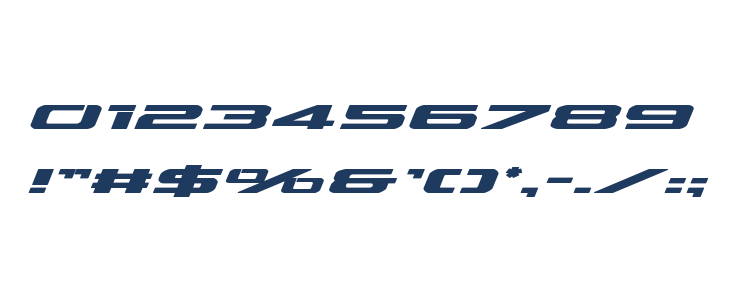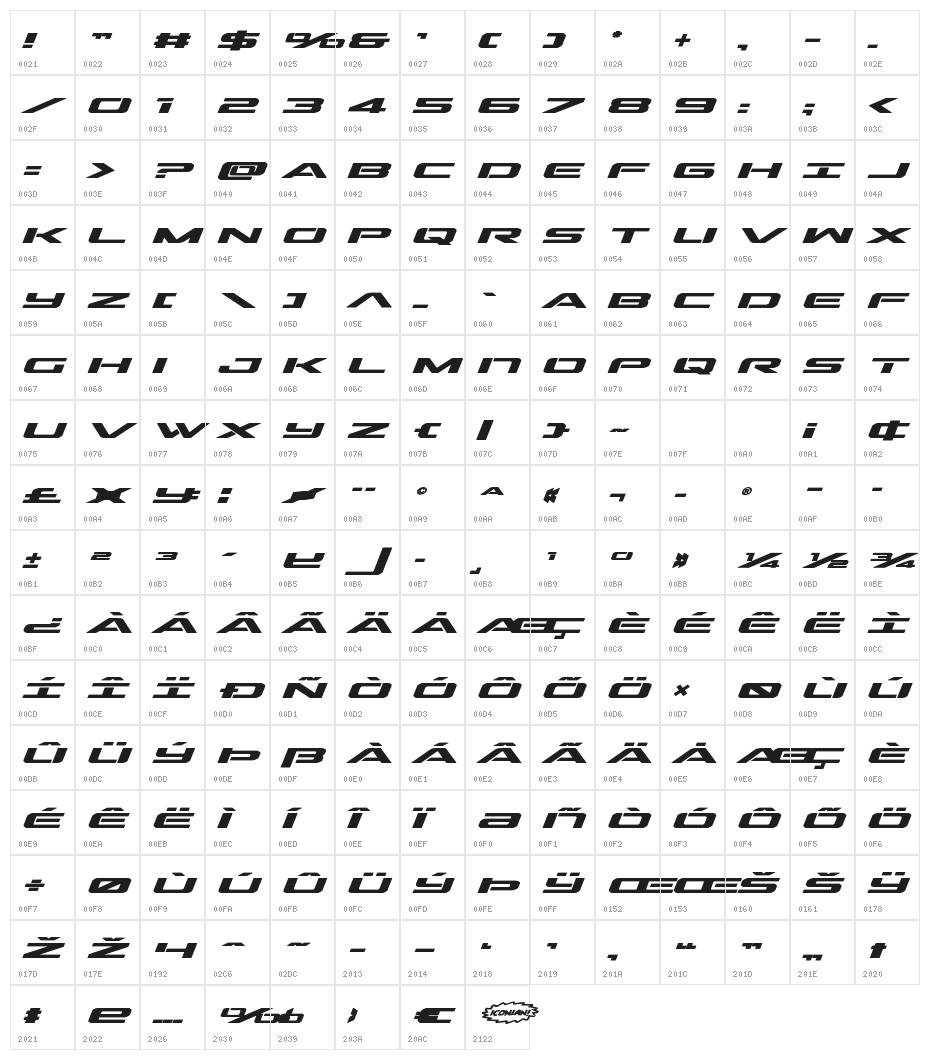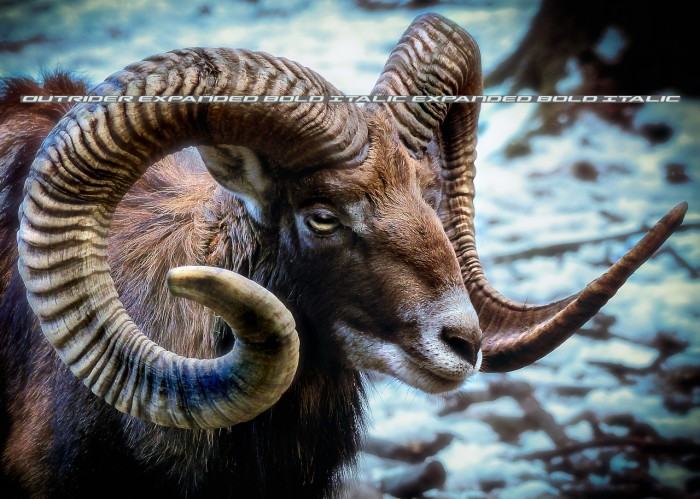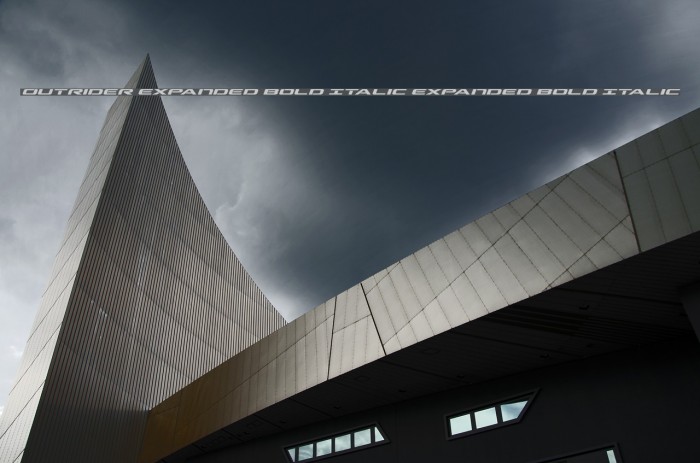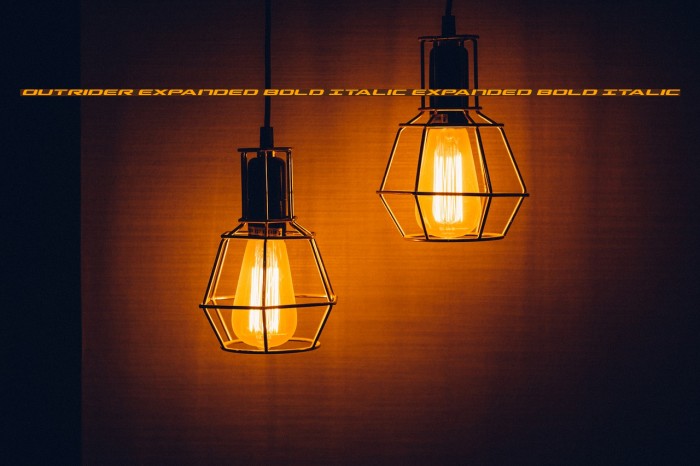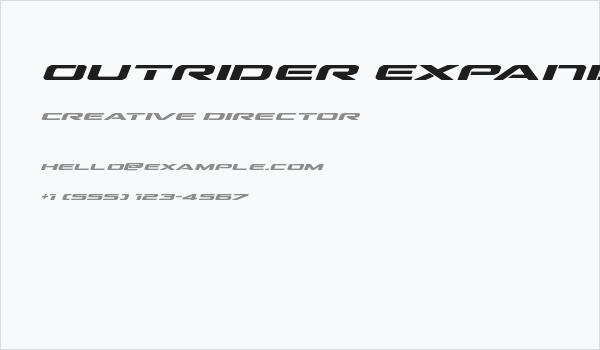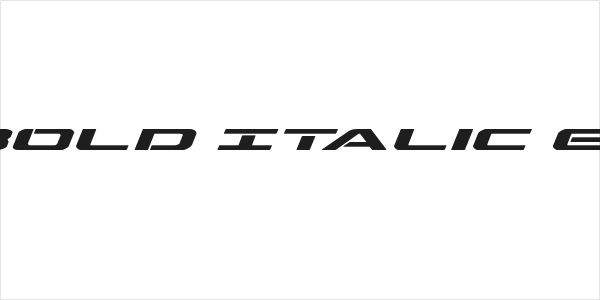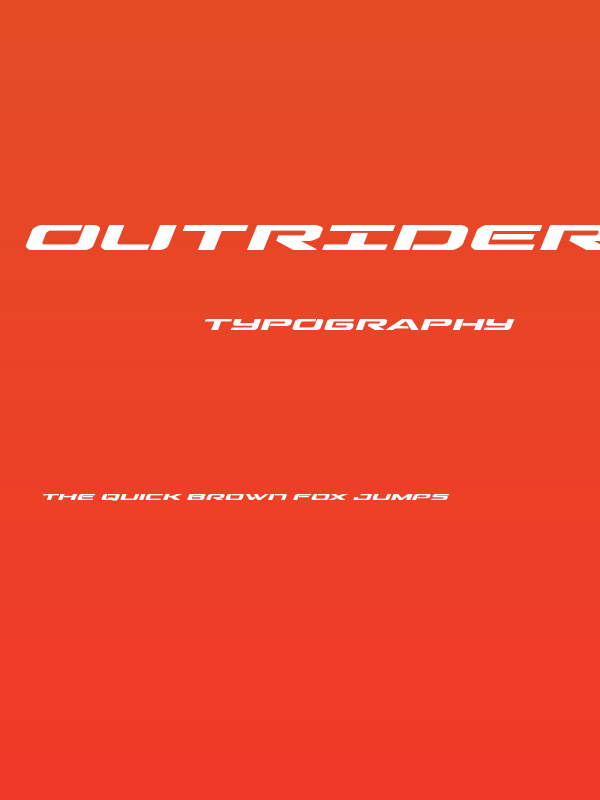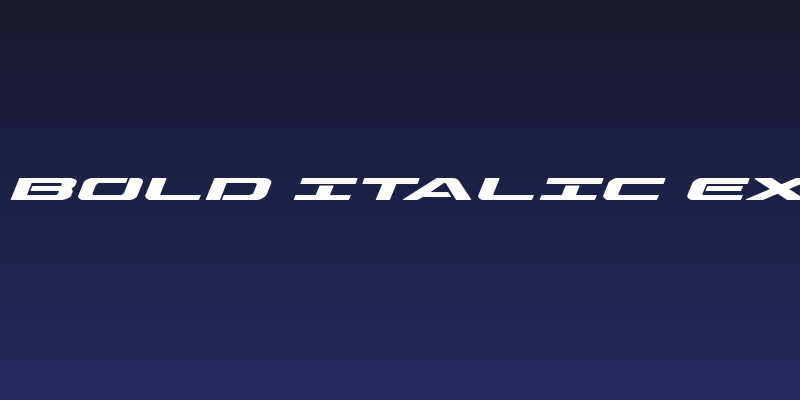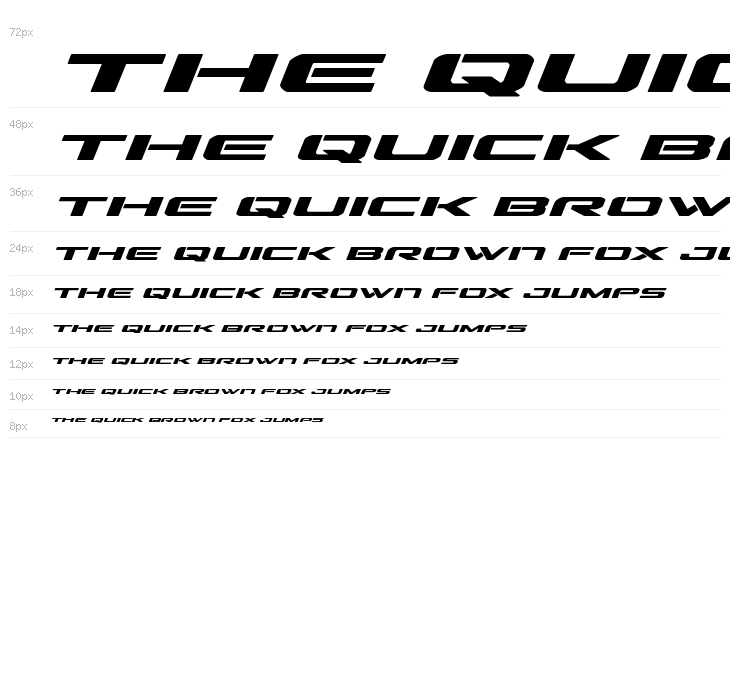
Outrider Expanded Bold Italic Font
Outrider Expanded Bold Italic Description
This font features a bold and italic style with an expanded width, giving it a dynamic and futuristic appearance. The characters are sharply angled, conveying a sense of speed and modernity. The uppercase and lowercase letters maintain a consistent style, with a slight slant that enhances the italic effect. The numerals and special characters are designed to match the bold and expanded characteristics, ensuring uniformity across all glyphs. The overall design is sleek and contemporary, suitable for projects that require a strong visual impact.
Use CaseLogos, Headlines
Proposed ProjectsIdeal for branding, sports team logos, automotive designs, and tech-related projects.